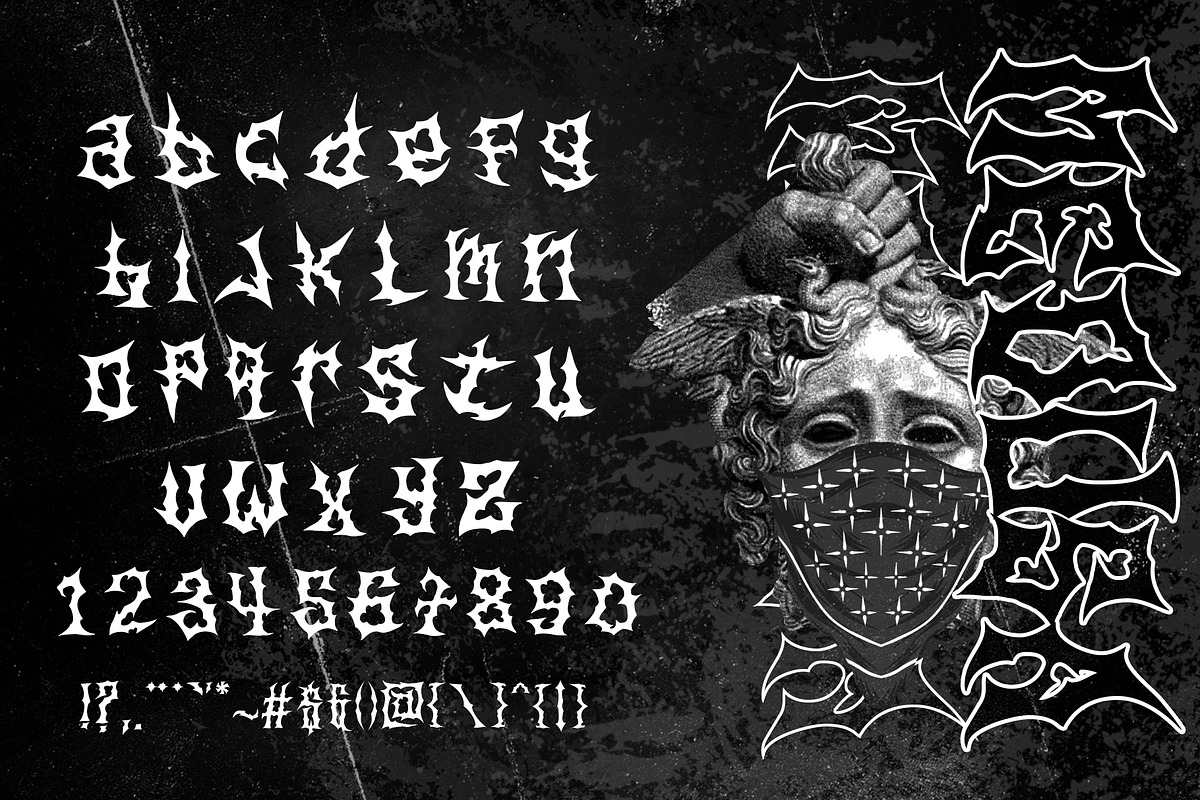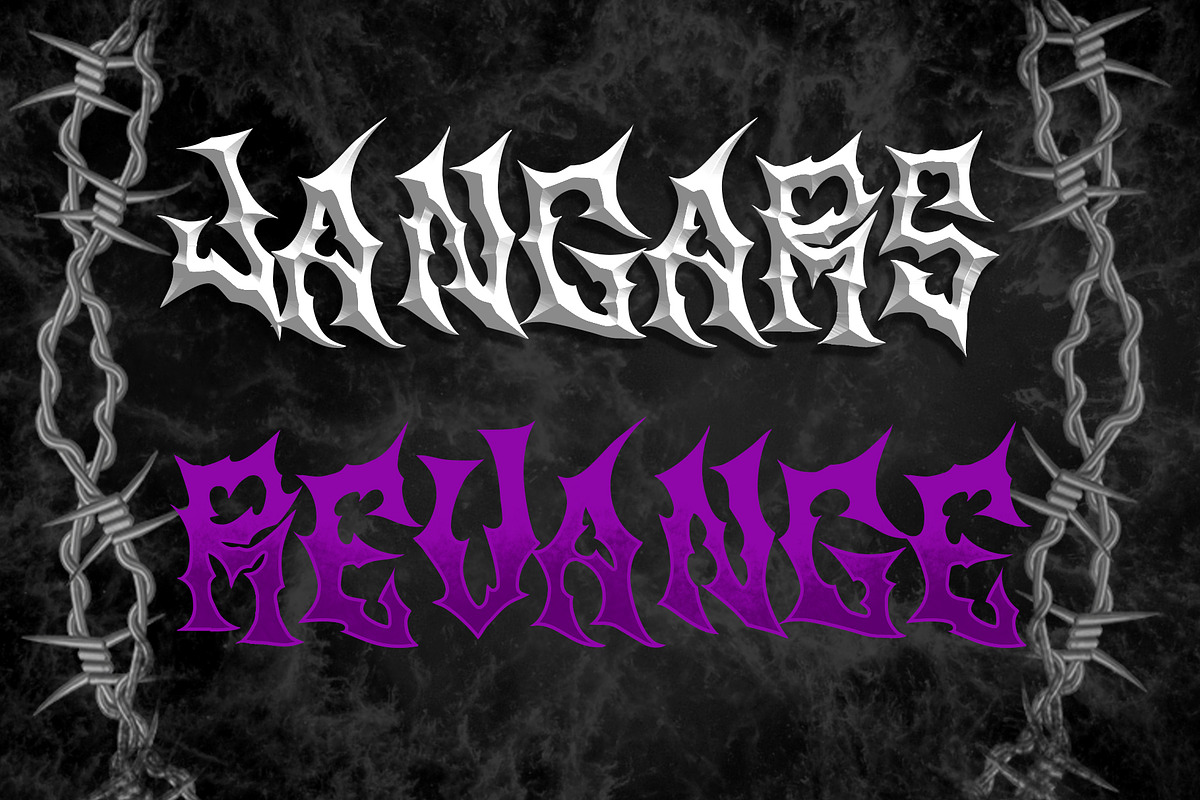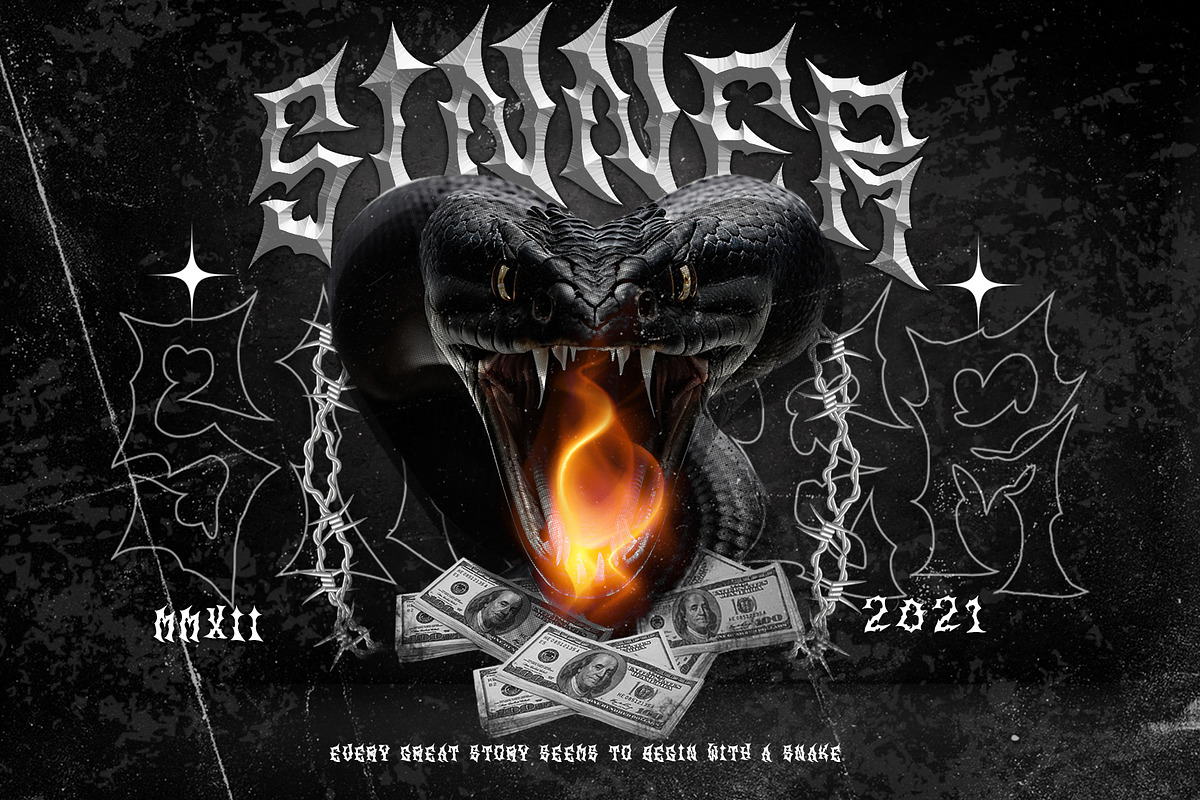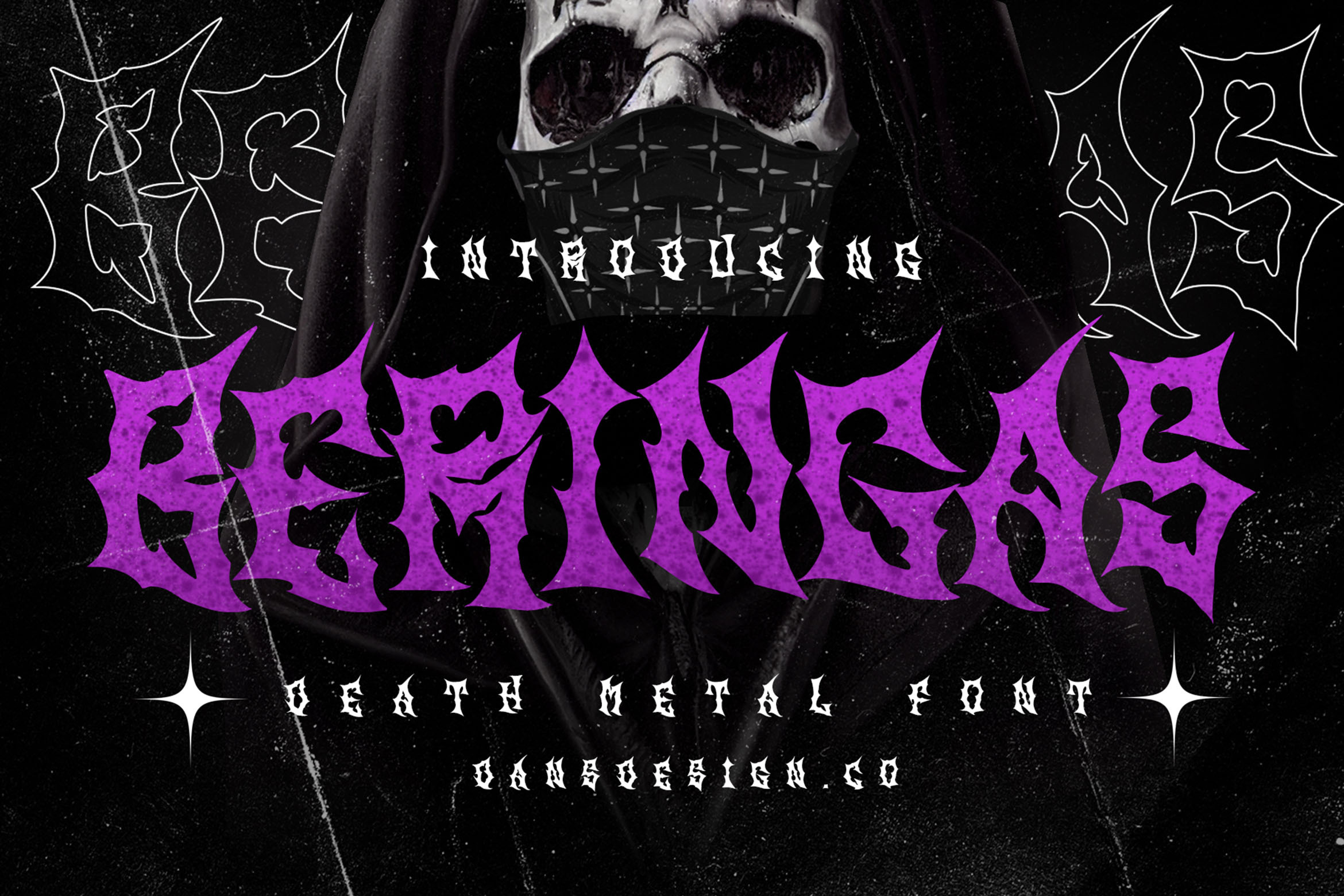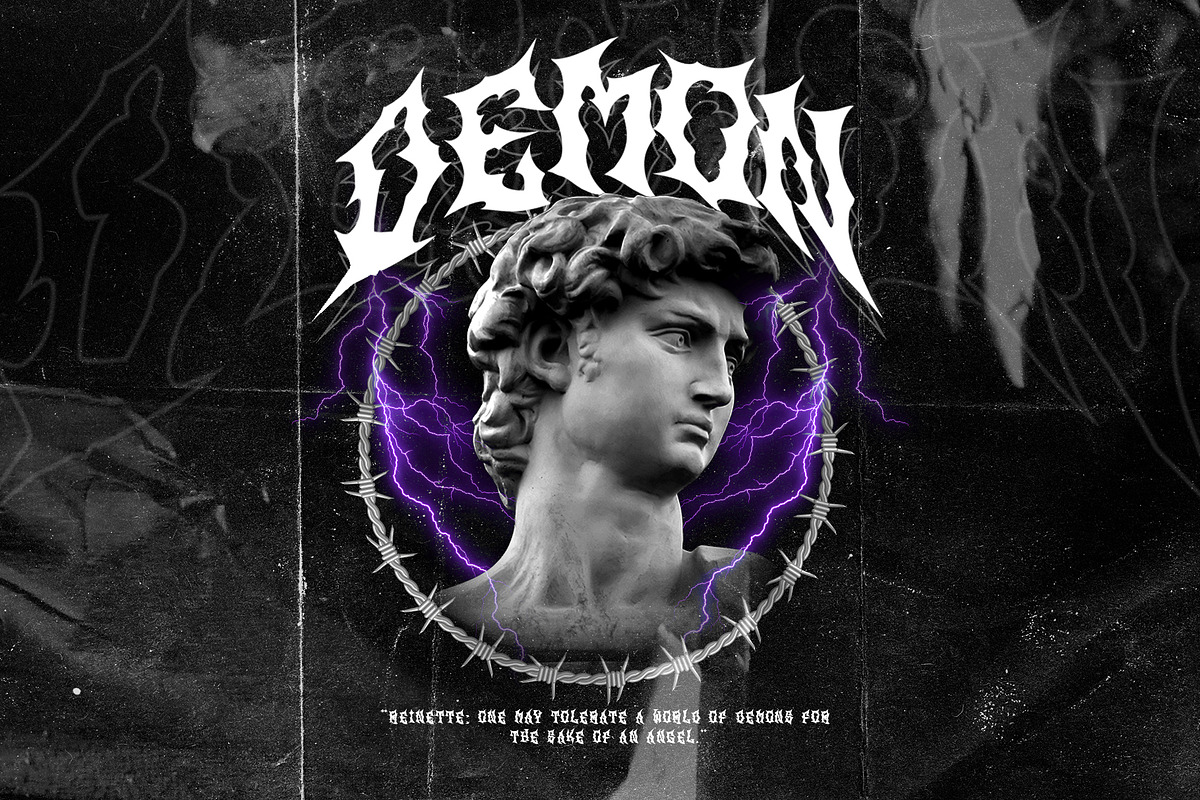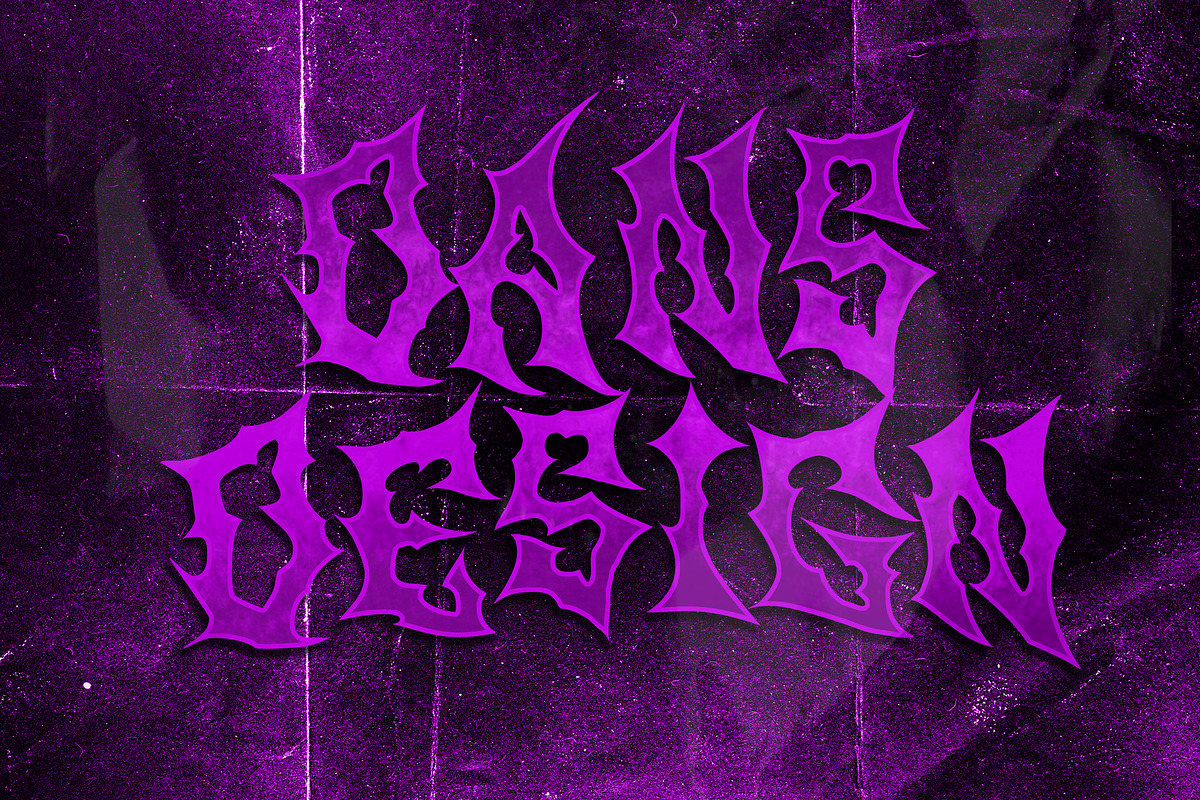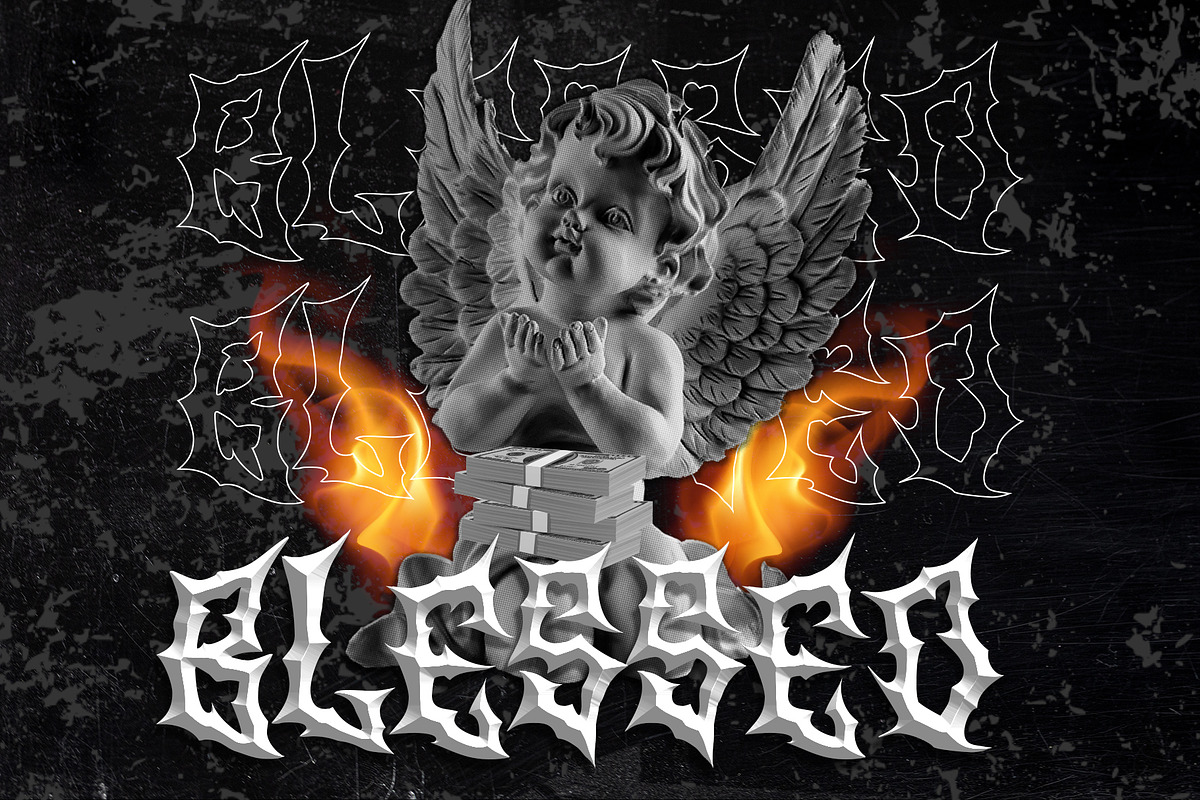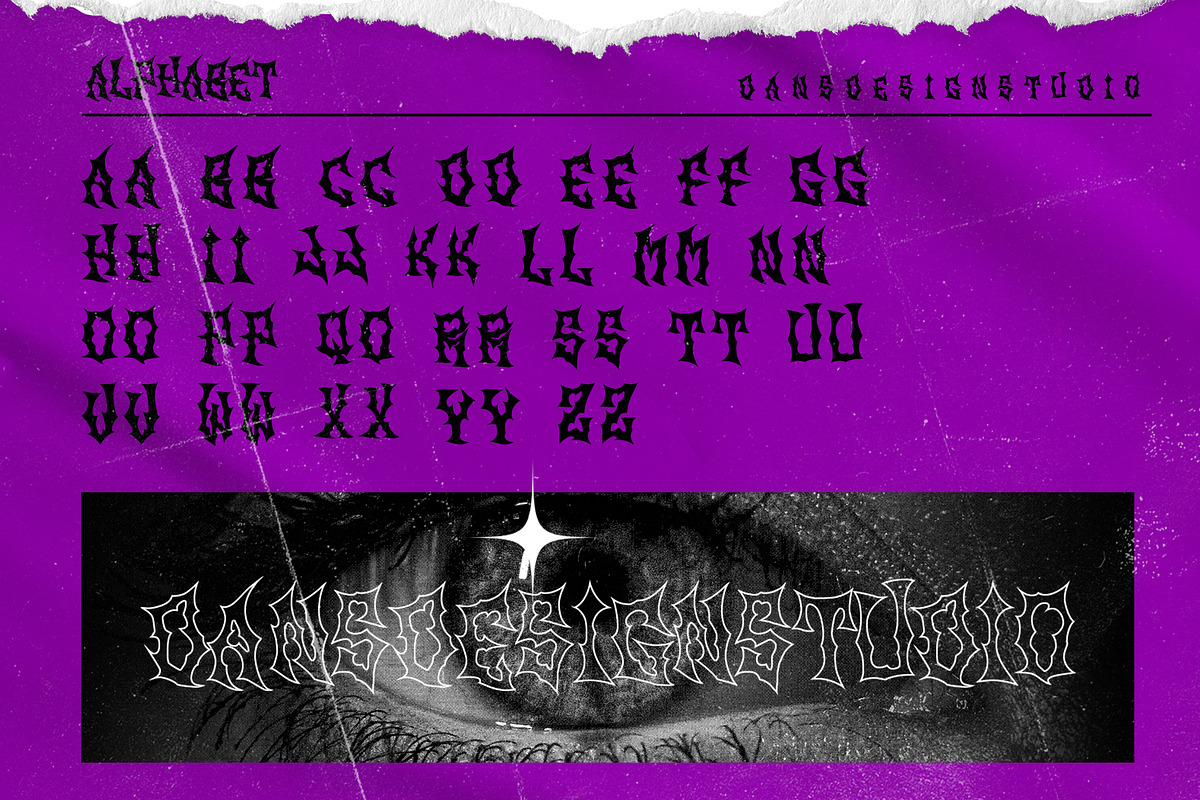
BERINGAS Modern Metal Horror Font
BERINGAS Modern Metal Horror Font is a bold and highly detailed display typeface inspired by gothic and heavy metal aesthetics. With its sharp and aggressive style, it’s perfect for music artwork, concert posters, tattoo branding, retro-urban designs, vintage logos, merchandise, and other creative projects that need a dark and powerful look.
Multilingual support (accents & special characters) PUA encoded for easy access to all glyphs Numerals and punctuation (OpenType standard)